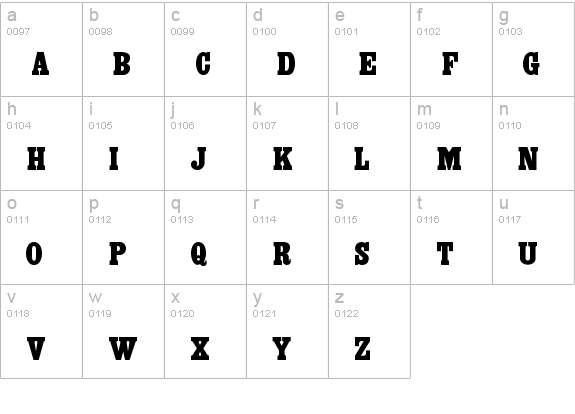
Headliner Font Details
Introducing Headliner, a captivating font that is sure to make your designs stand out from the crowd. With its bold and eye-catching letterforms, Headliner commands attention and leaves a lasting impression. This versatile font is perfect for headlines, titles, logos, and any project that requires a touch of elegance and modernity. What sets Headliner apart is not only its striking design, but also the fact that it is available for free. That's right, you can now download this stunning font without any cost, making it accessible to designers and creatives of all levels. Headliner can be found exclusively at FontsMarket.com, a trusted source for high-quality fonts. Whether you're designing a magazine cover, creating a stunning website, or crafting promotional materials, Headliner will elevate your work to new heights. Its clean lines and sleek curves ensure legibility, while its boldness adds a touch of drama and sophistication. This font truly embodies the spirit of modern design, making it a must-have for any designer's toolkit. With Headliner, you no longer have to compromise between style and affordability. This font combines both, offering a premium-quality typeface that won't break the bank. So why wait? Head over to FontsMarket.com and download Headliner for free today. Unleash your creativity and make a bold statement with this exceptional font.